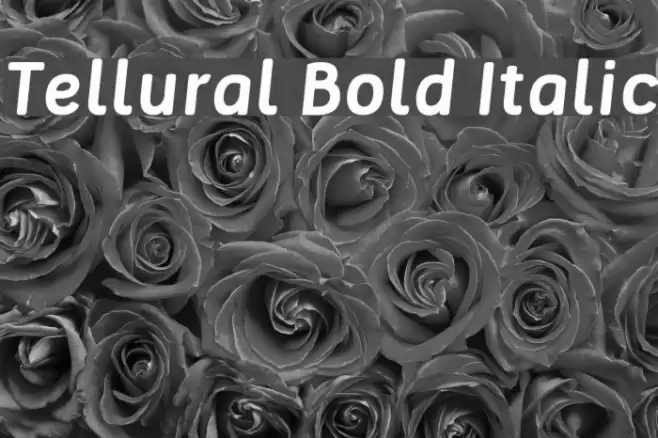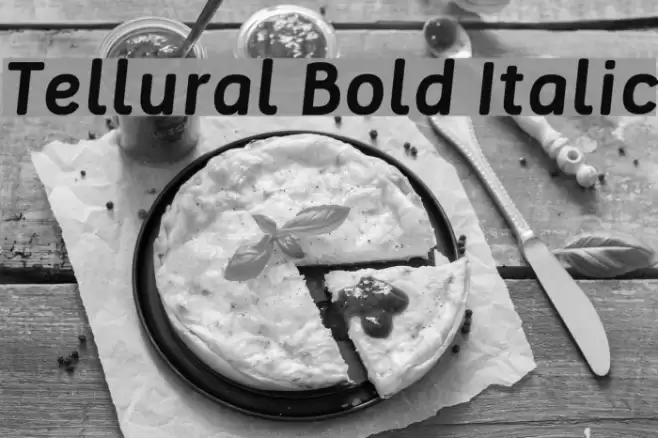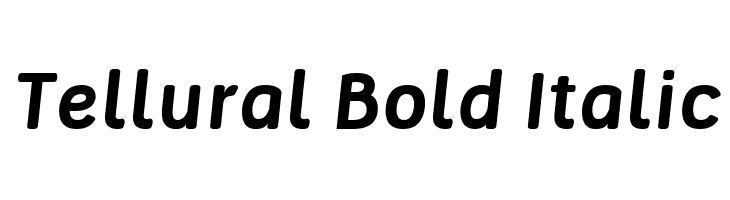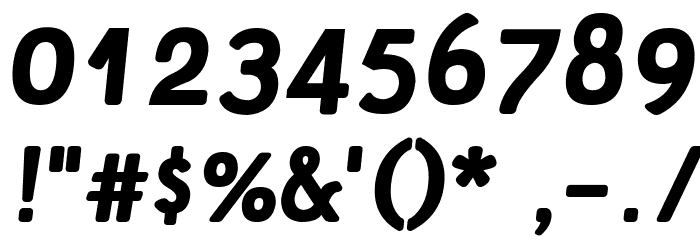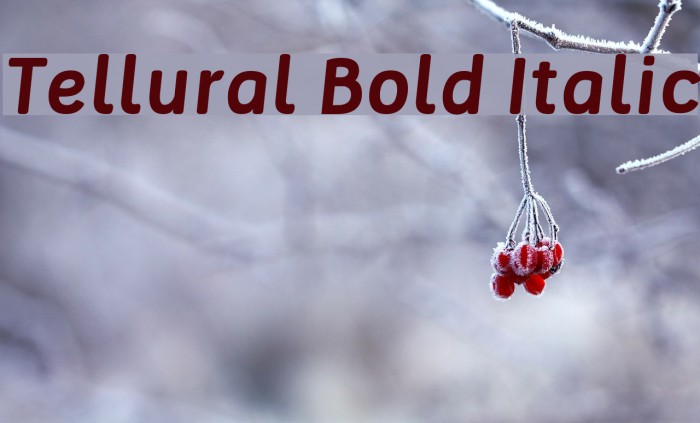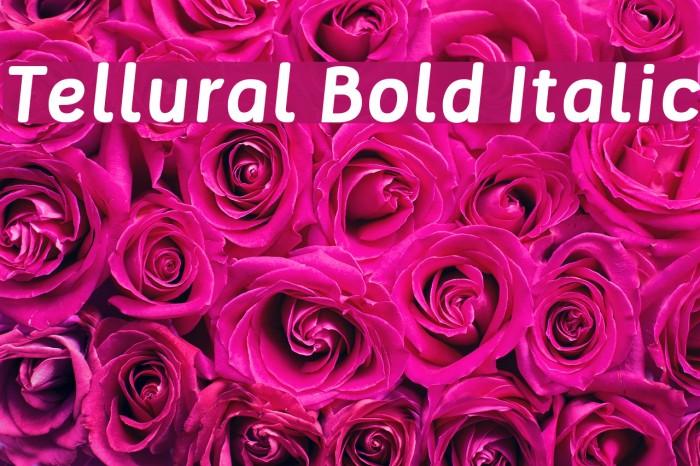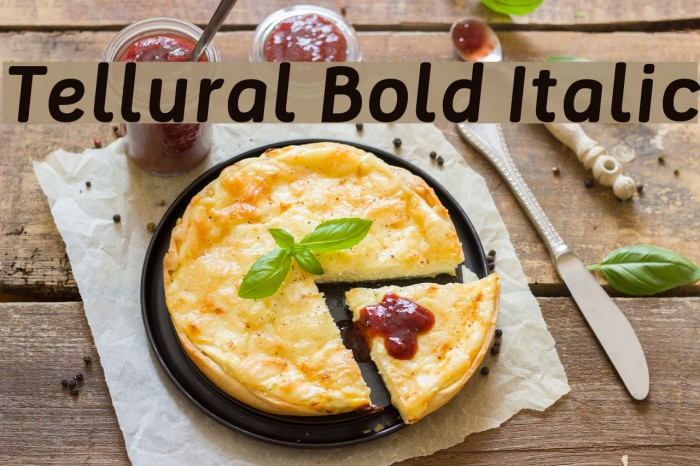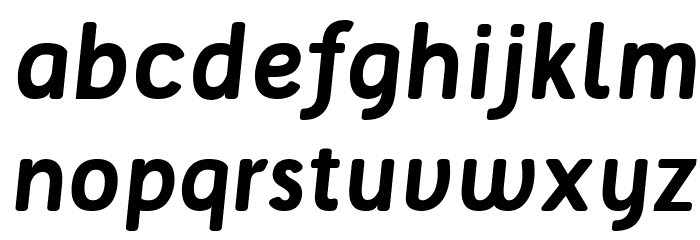
Tellural Bold Italic Font
Tellural Bold Italic Description
This font features a bold and italic style, characterized by its smooth, rounded edges and slightly condensed letterforms. The strokes are consistent in thickness, providing a uniform appearance that enhances readability. The italic slant adds a dynamic and modern touch, making it suitable for various design applications. The numerals and special characters maintain the same bold and italicized style, ensuring a cohesive look across all text elements. The overall design is clean and versatile, fitting well in both digital and print media.
A bold, italic font with smooth, rounded edges and a modern slant from Uncategorized fonts.
- Proposed Projects: Ideal for branding, advertising, headlines, and digital media where a modern and bold statement is needed.
- Use Case: Headlines, Logos, Branding